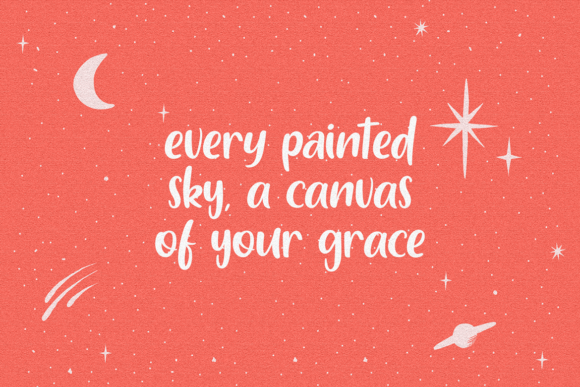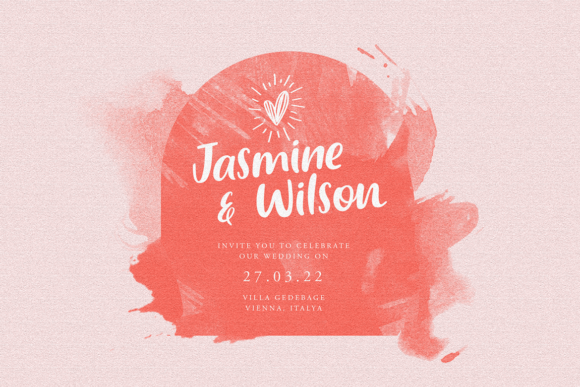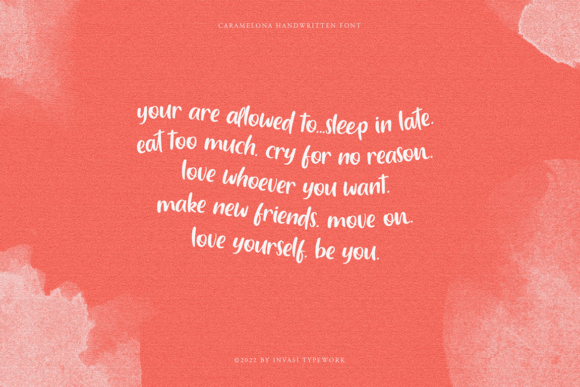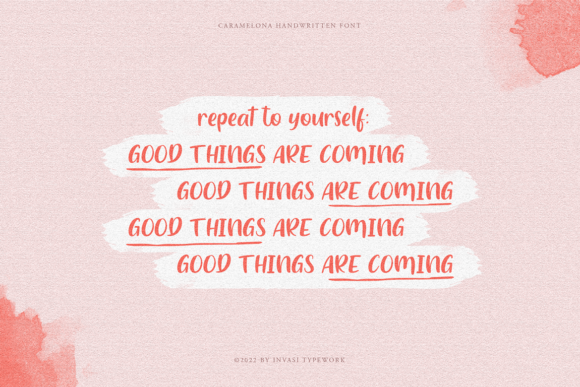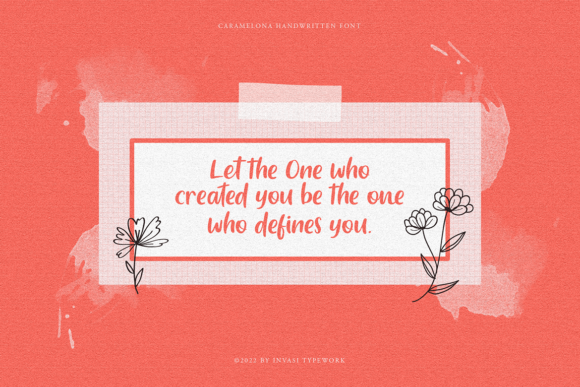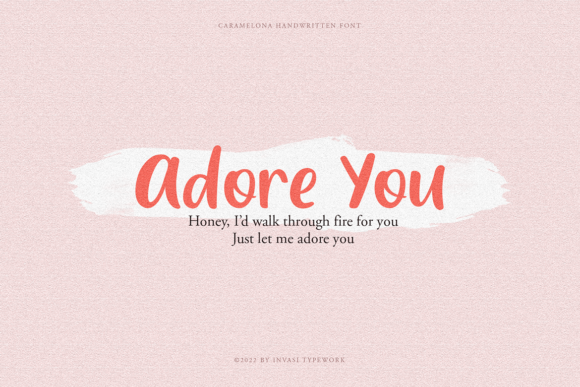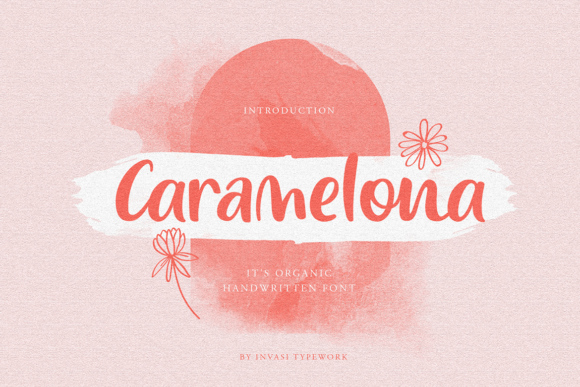
Introducing Caramelona Font: Elevate Your Designs with Elegance and Sophistication
In the world of typography, a well-crafted font can make all the difference in elevating your design projects from ordinary to extraordinary. If you’re a designer, crafter, or DIY enthusiast looking for a touch of elegance and class, look no further than the Caramelona Font. This beautifully designed, handwritten font is meticulously crafted with great care to deliver maximum results, making it an ideal choice for a wide range of creative projects.
What Makes Caramelona Font Stand Out?
Caramelona Font is a relaxed and organic handwritten font that exudes a sense of warmth and sophistication. Its unique, flowing script is perfect for adding a personal touch to your designs, whether you’re working on a logo, branding materials, invitations, or any other project that requires a distinctive and stylish look. The font’s organic feel makes it versatile enough to complement a variety of design aesthetics, from modern and minimalist to vintage and eclectic.
Key Features of Caramelona Font
• PUA Encoded for Easy Access: One of the standout features of Caramelona Font is its PUA (Private Use Area) encoding. This means that you can easily access all the glyphs and swashes, allowing for greater flexibility and creativity in your designs. With PUA encoding, you can unlock the full potential of the font and explore a wide range of stylistic options.
• Elegant and Classy: Caramelona Font is designed to add a touch of elegance and class to any project. Its sophisticated look makes it perfect for high-end branding, luxury packaging, and premium marketing materials.
• Relaxed and Organic: The font’s relaxed and organic feel makes it ideal for designs that require a more personal and approachable look. It’s perfect for creating a sense of warmth and connection with your audience.
• Versatile: Caramelona Font is incredibly versatile and can be used for a wide range of projects, including logos, branding materials, invitations, posters, and more.
Whether you’re a professional designer or a crafter looking to add a personal touch to your projects, Caramelona Font offers a range of benefits. For designers, the font provides a unique and stylish option for clients looking for a distinctive look. For crafters, it’s a great way to add a professional touch to DIY projects, such as handmade cards, invitations, and gift tags.
• Experiment with Different Sizes: Caramelona Font looks great in a variety of sizes, from large headings to smaller body text. Experiment with different sizes to find the perfect fit for your project.
• Play with Swashes and Glyphs: Take advantage of the font’s PUA encoding to access a wide range of swashes and glyphs. These can add an extra touch of elegance and sophistication to your designs.
• Pair it with Other Fonts: Caramelona Font pairs well with a variety of other fonts. Try combining it with a clean sans-serif font for a modern look or with a serif font for a more traditional feel.
If you’re looking for a font that can add elegance and class to your design projects, look no further than Caramelona Font. With its relaxed and organic feel, PUA encoding, and versatile design, it’s the perfect choice for designers, crafters, and DIY enthusiasts alike. Whether you’re working on a high-end branding project or a handmade craft, Caramelona Font is sure to deliver impressive results.